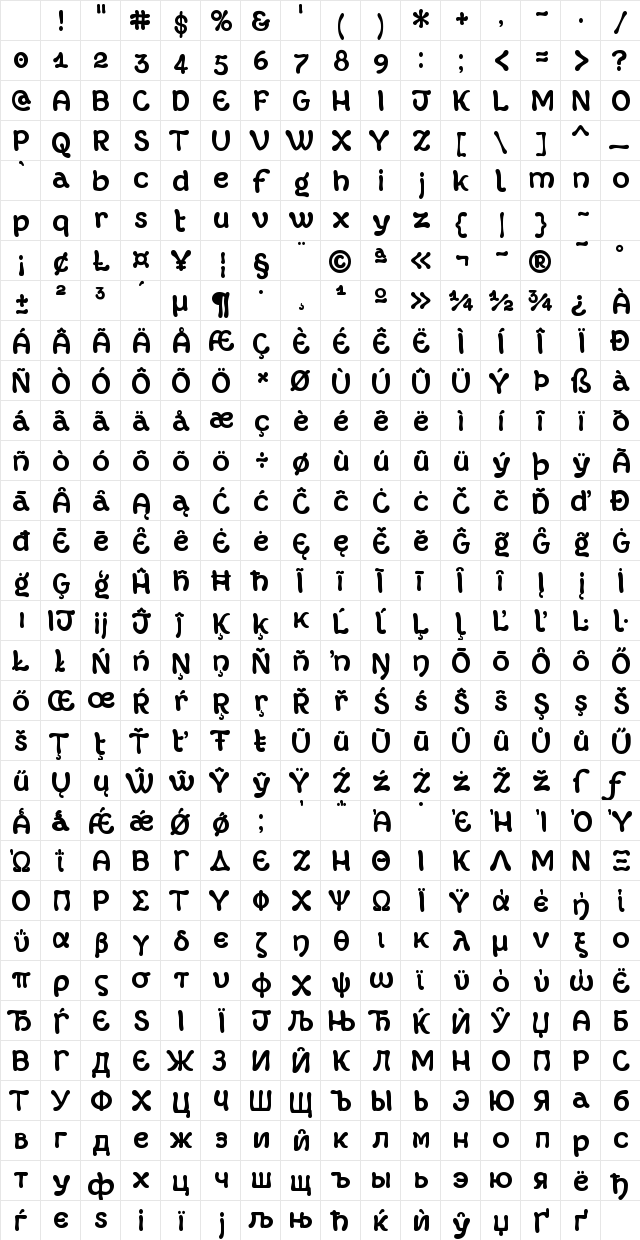
Margot is a composed and adaptable typeface that performs quietly and consistently across a wide range of design contexts. Its bold stroke weight gives it real presence on the page.